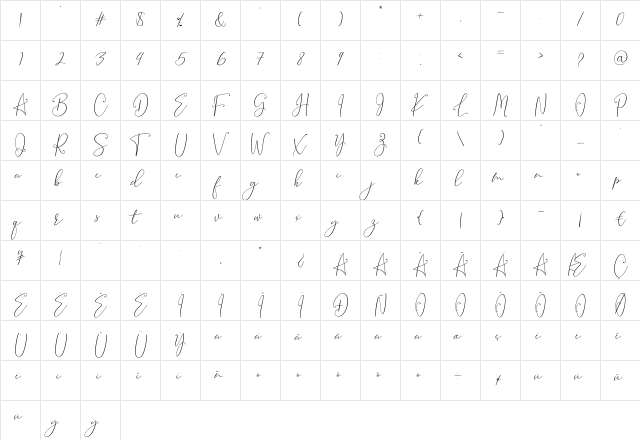
Brooke Smith Script Regular
| Foundry | Mightype |
| Designer | Munawir |
Design Context for Brooke Smith Script Typeface
Brooke Smith Script flows with the natural rhythm of handwritten lettering, making it ideal for designs that call for warmth and personal expression.